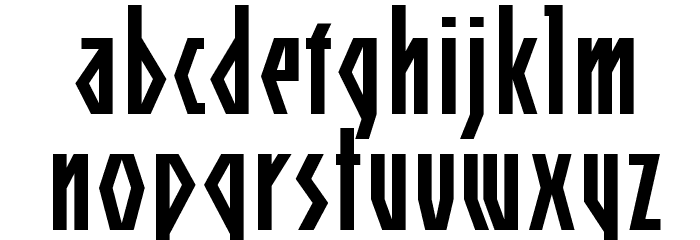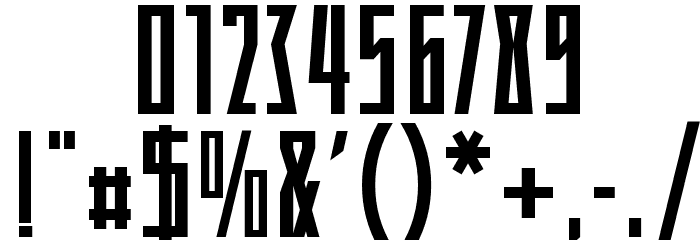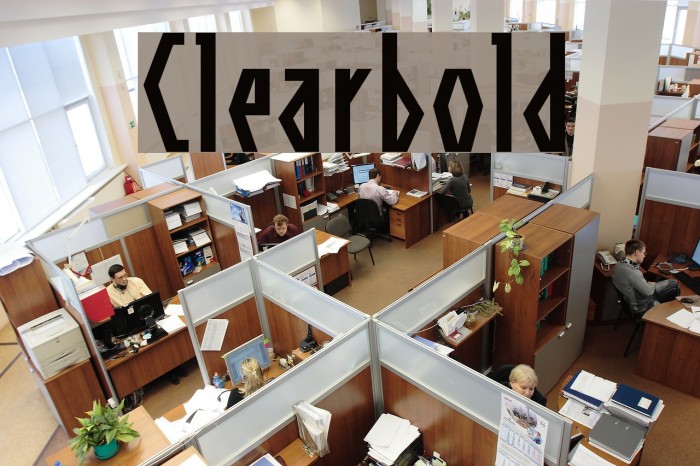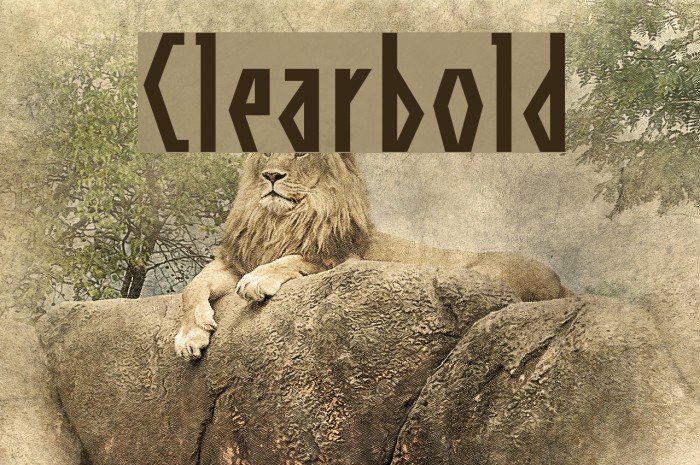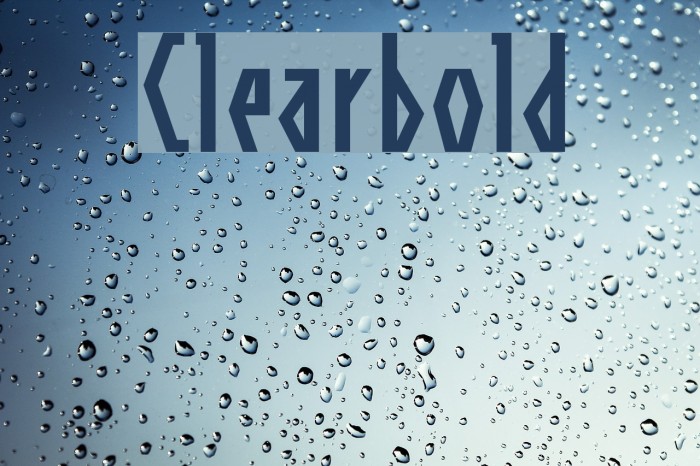
Clearbold Font
This font features a bold, geometric design with sharp angles and a modern aesthetic. The uppercase letters are tall and narrow, with distinct angular cuts that give them a futuristic look. The lowercase letters maintain the same angular style, providing a cohesive appearance across the typeface. The numbers are equally bold and geometric, ensuring readability while maintaining the overall style. Special characters are designed with the same angular precision, making them stand out. This font is ideal for projects that require a strong, impactful visual presence.
A bold, geometric font with sharp angles and a modern aesthetic.
- Proposed Projects: Ideal for branding, poster design, and any project requiring a strong visual impact.